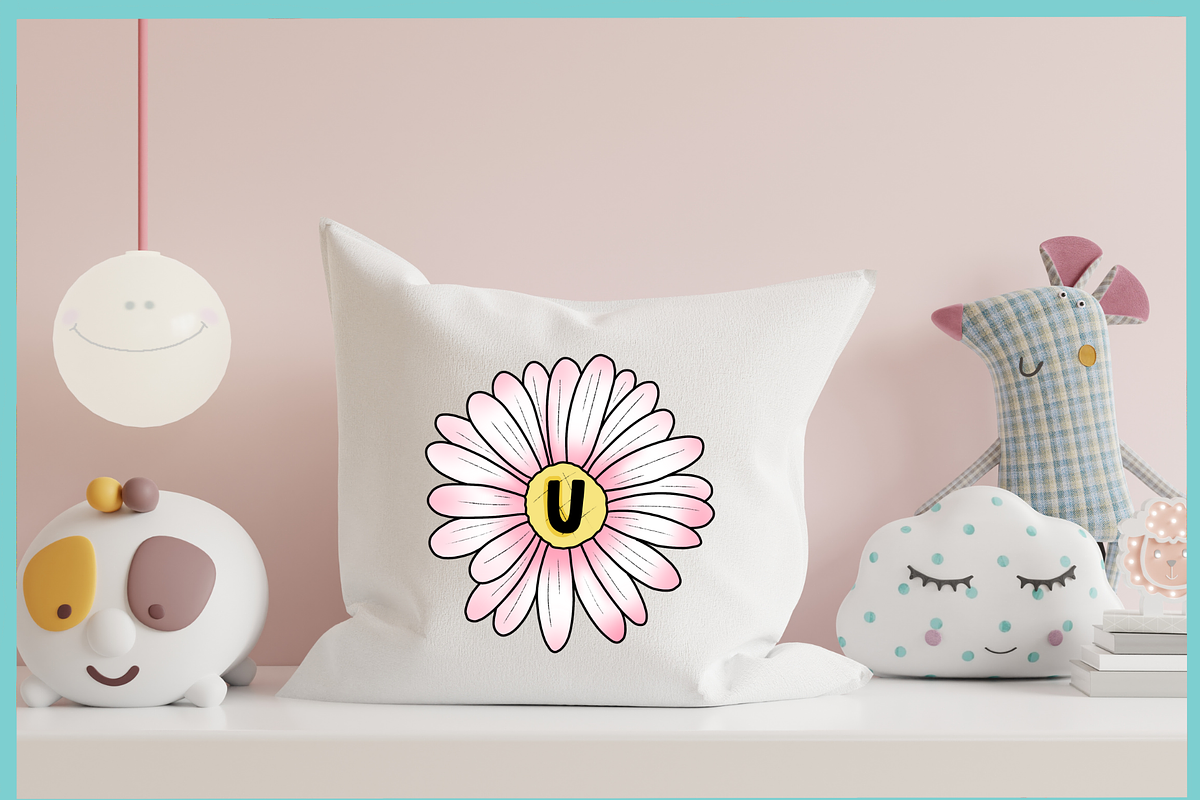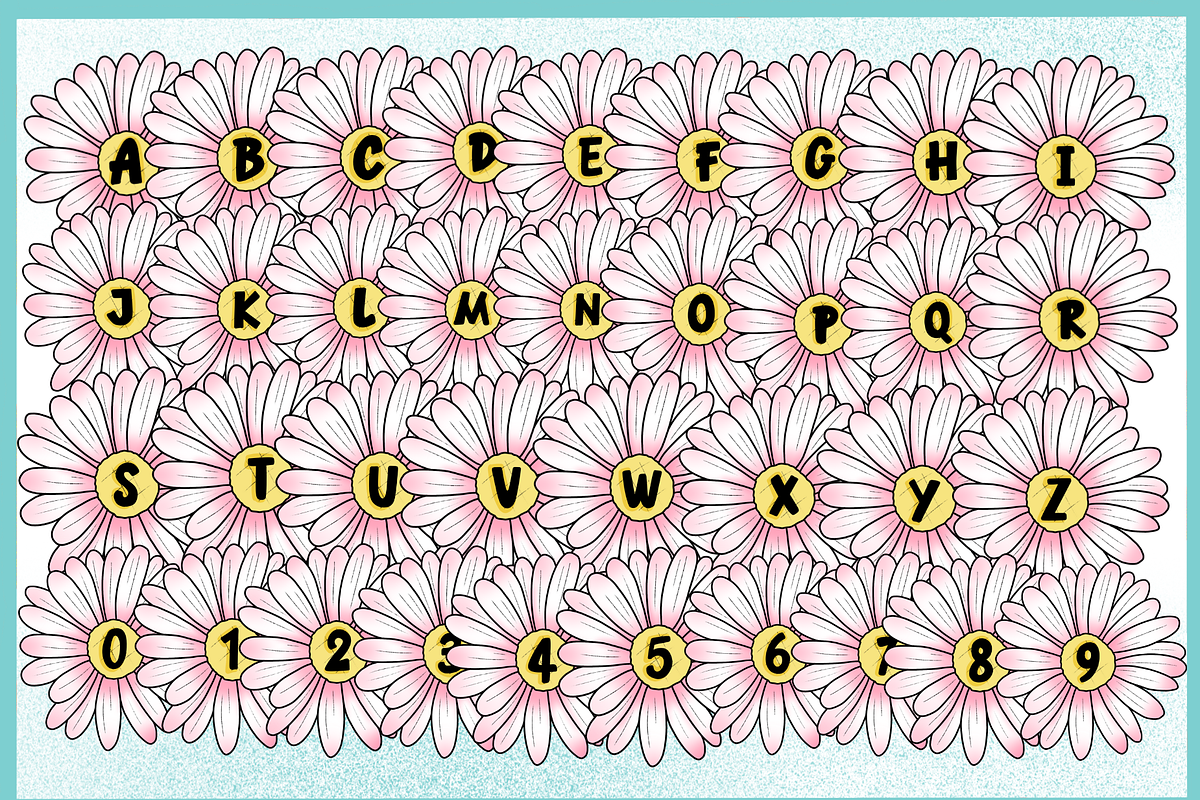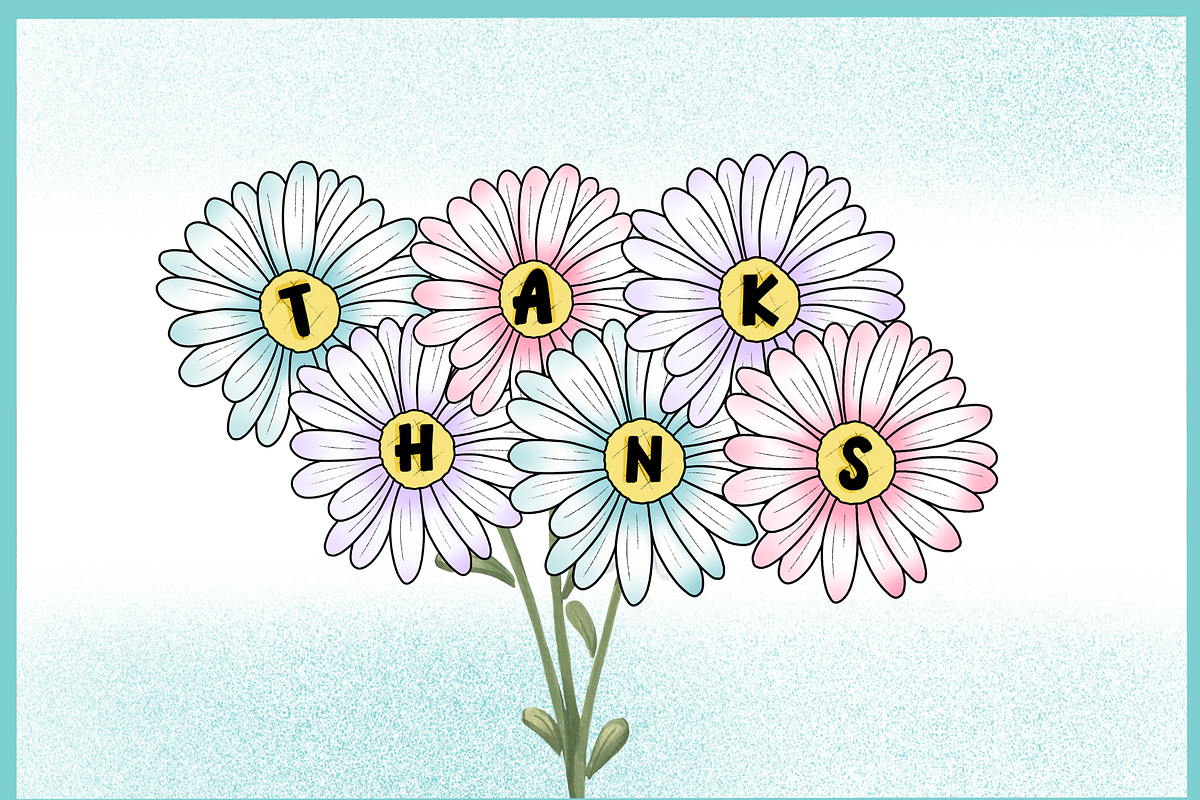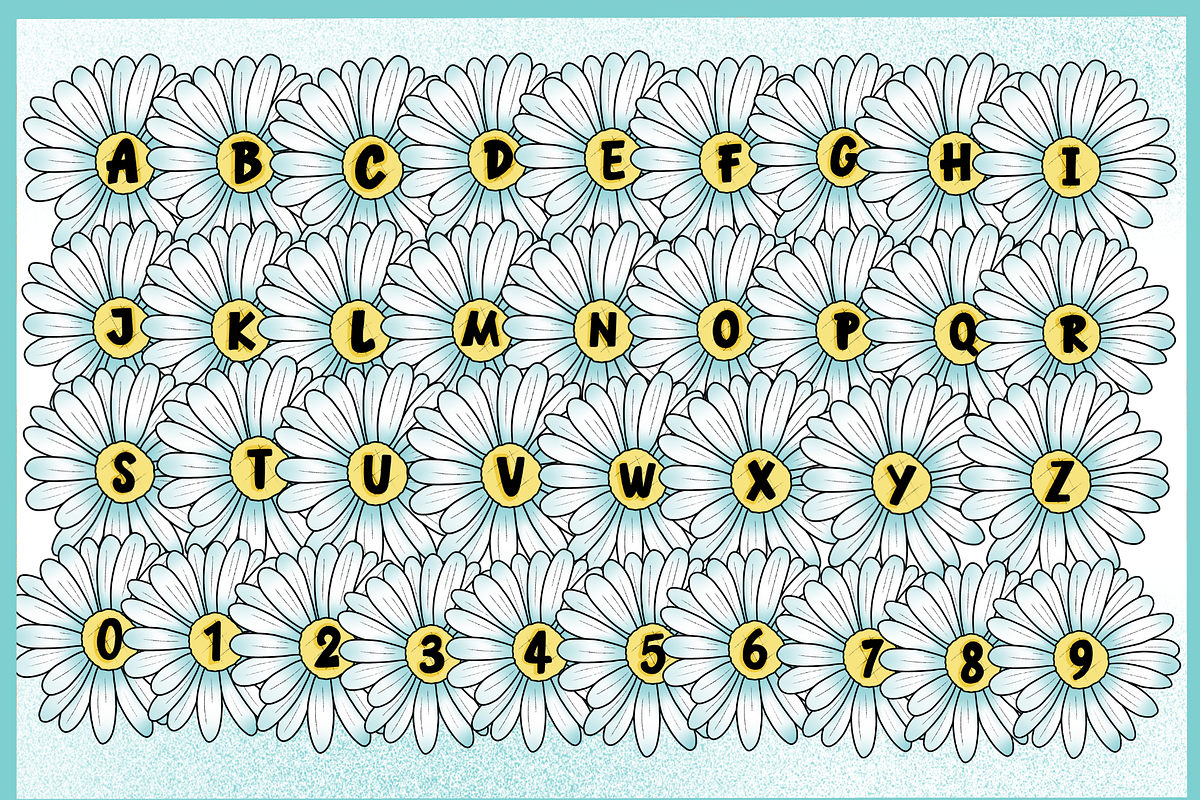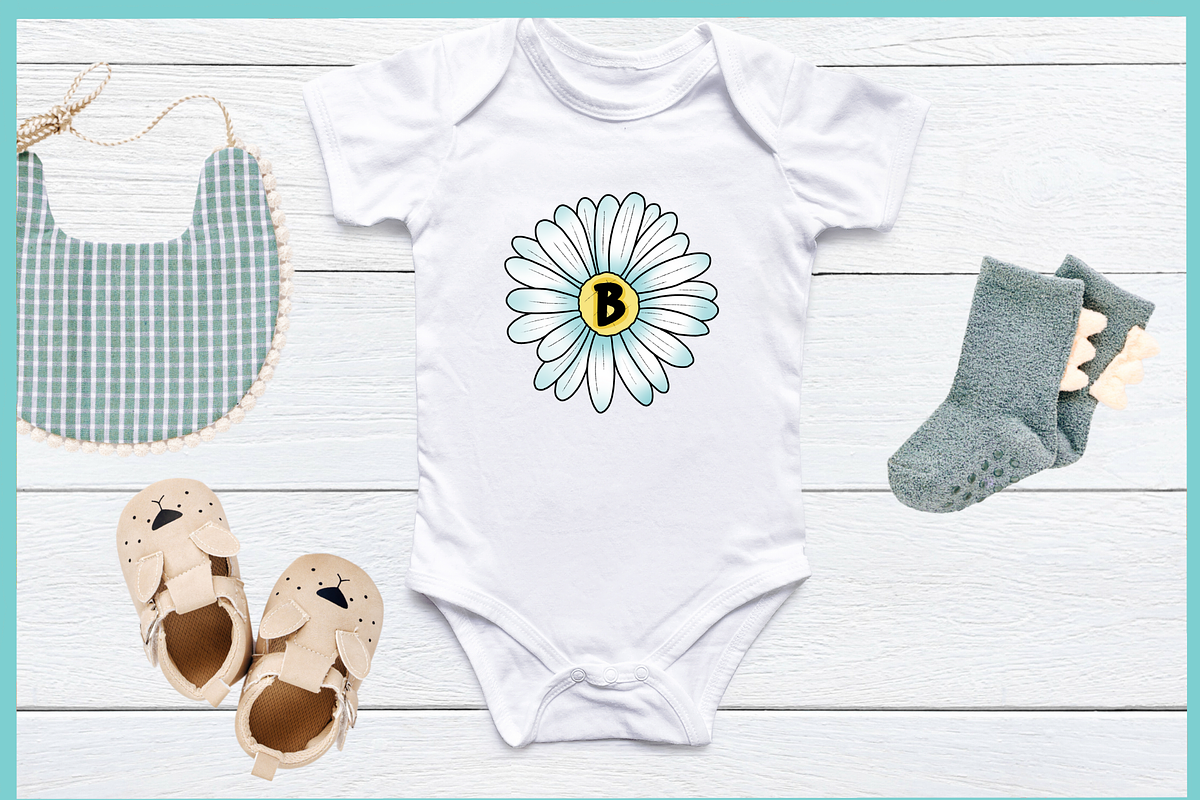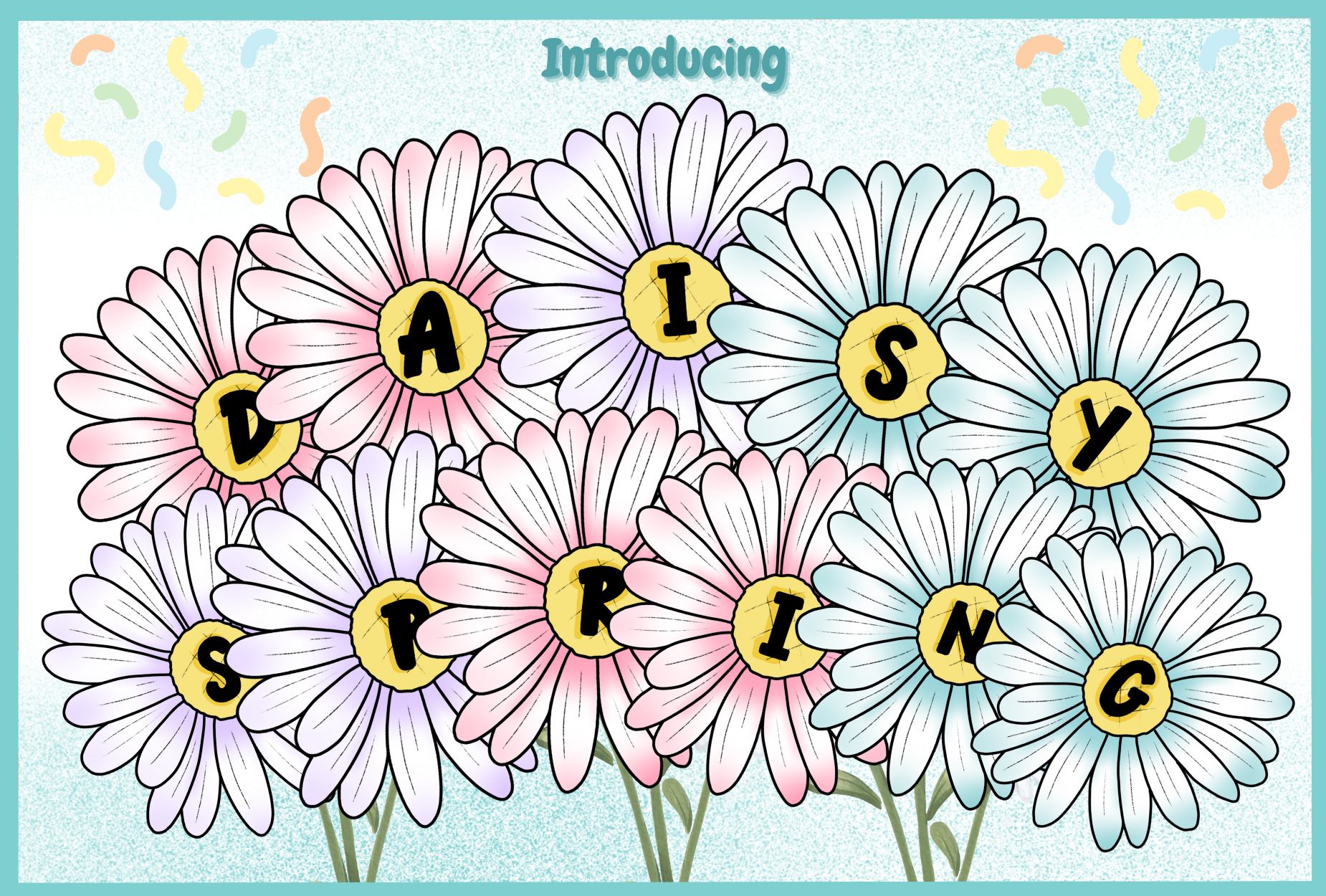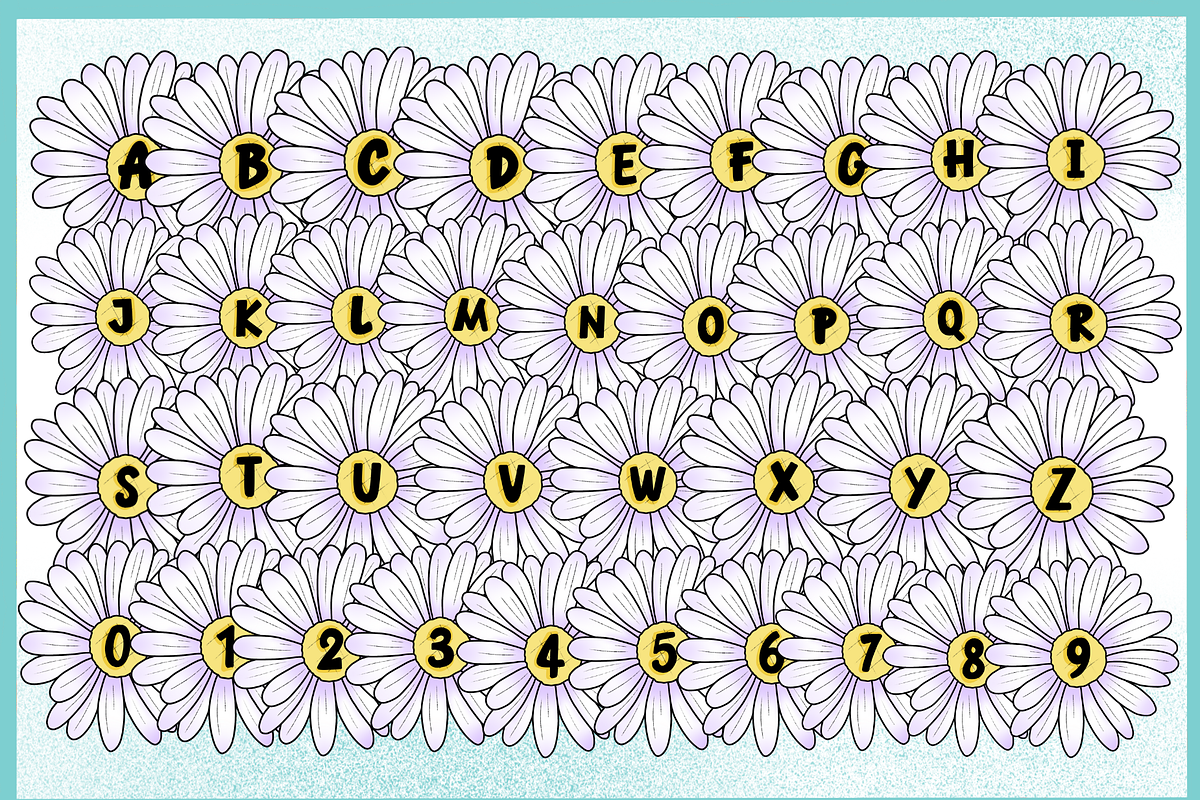
Daisy Spring -PNG Font
Daisy Spring Font
Daisy Spring is a joyful and whimsical display font that blooms with charm and cheer. Each letter is nestled within the center of a daisy, making it the perfect choice for kids’ designs, spring-themed projects, greeting cards, classroom decor, party invitations, and cheerful branding. Bring your words to life with the fresh and fun vibe of this floral typeface!